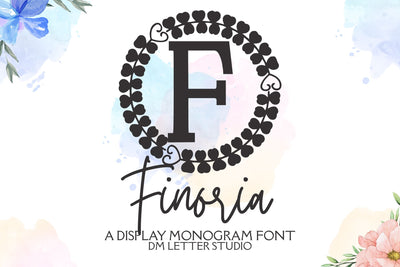
Finoria Monogram Font
Meet Finoria, the Monogram Font
Finoria Monogram Font turns simple initials into calm, elegant emblems. Lines feel smooth and balanced, while open counters keep tiny tags readable. Use it for wedding suites, boutique logos, keepsake gifts, and premium packaging. Moreover, Finoria pairs beautifully with modern serifs and clean sans fonts, so your layouts look refined without extra work.
Set single, double, or triple initials for logos, seals, menus, and place cards. Then frame them with laurel rings, oval borders, or fine rules to echo the graceful forms. Since proportions favor symmetry, polished compositions come together in minutes. As a result, your thumbnails stand out and your listings stay consistent across products. Plus, Finoria scales smoothly from jewelry cards to venue signage.
Design tips for Finoria Monogram
Keep initials large and let white space breathe. Pair the headline monogram with a quiet serif or humanist sans for supporting text. Meanwhile, add micro shadows, a thin inner stroke, or a delicate frame for depth. Because the structure is airy, textured paper and metallic accents raise perceived value. However, keep copy short so the monogram remains the hero.
Select stylistic alternates for key letters
Curves tuned for foil, letterpress, engraving, laser, and clean vinyl cutting